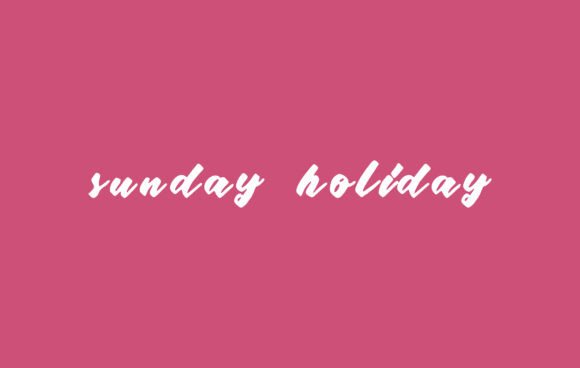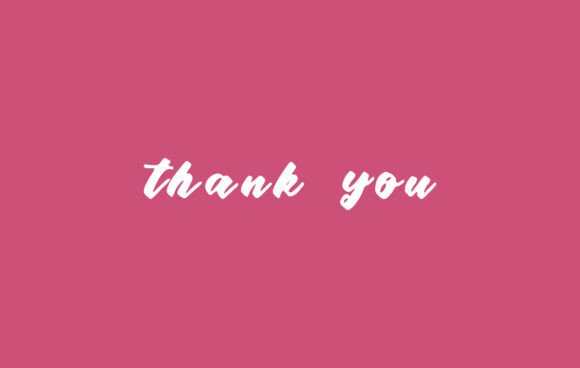
Introduction to Mazie Font
Have you ever been working on a creative project and felt like the right font was just out of reach? You’ve scoured through countless options, but none seem to capture the essence of your vision. That’s where the enchanting Mazie Font comes in – a genuine handwritten font that exudes a romantic touch and has the potential to elevate your creative ideas to new heights.
Whether you’re working on a design project, crafting wedding invitations, or creating social media posts, the Mazie Font is an invaluable resource that can add a personal touch to your work. Its legibility and versatility make it perfect for use as both a title and body text, ensuring that your message is conveyed with clarity and style.
Mazie Font
- High-quality, professional font perfect for creative projects and designs.
- Features a transparent background, allowing for easy layering and customization.
- Unique, elegant design makes it suitable for a wide range of creative applications, from logos to typography.
Honest Review: Mazie Font
As a designer, I’m always on the lookout for high-quality design resources that can elevate my creative projects. Recently, I stumbled upon the Mazie Font, and I must say, it’s been a game-changer for my recent design endeavors.
- ✨ Beautiful, elegant script font that’s perfect for adding a touch of sophistication to my designs.
- ✨ Highly versatile, suitable for a wide range of creative projects, from wedding invitations to branding materials.
- ✨ Comes with a transparent background, making it easy to customize and integrate into my designs.
However, there are a few limitations I’ve encountered:
- ⚠️ The font is not suitable for small text sizes, as it can become difficult to read.
Overall, I’m thoroughly impressed with the Mazie Font. It’s a high-quality design resource that’s perfect for designers looking to add a touch of elegance to their creative projects. While it has some limitations, I believe the benefits far outweigh the drawbacks.
Mazie Font
Mazie Font is a high-quality design resource ideal for creative projects. Its transparent background makes it versatile for use in various design applications.